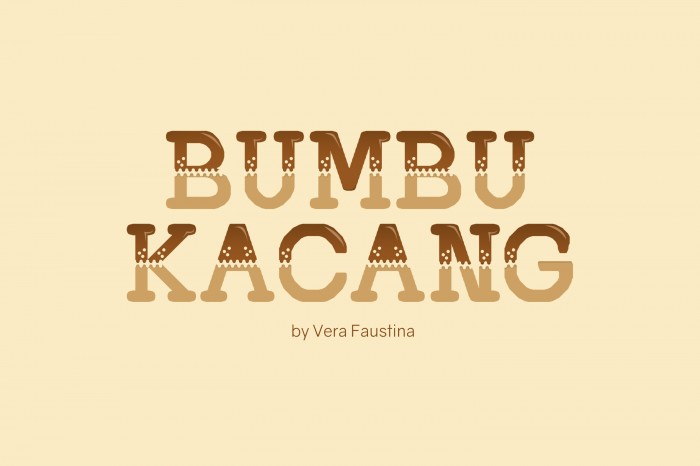
• Bumbu kacang is the actual name of Indonesian Salad’s (also known as gado-gado) peanut sauce. The round shape of the typeface inspired by the shape of lontong. The curvy part in the middle and the dots represent the peanut sauce.
Nice concept and well-executed ^^
this typeface really good, i really like it
cool font!! wow!
Great font and Nice concept! like it
Love it.. makes me wanna eat Gado-gado ^_^
WOW good idea, nice font.... goodjob
Nice concept !
lucu verr
nice font!!!
best one! love this cutie typeface❤️
niceee font ver!
nice font!
Ampun master
Keren pol! Kaya tribal" gtu. Goodjob! :)
Typeface ini indah bangett sis :)) like 9000x :))
consistent and perfect :3
Kesan kacangnya lucu banget!
Great job! Neat and unique!
kreatif!! kerenn!!
supernice! me lovittt! bagus pol verrr ngawur <3
Nice Typography, typeface yg detil, dan penambahan unsur desain sangat pas untuk menggambarkan gado-gado :)
Nice concept :D
Verry good! So consistent. I like it ;)
good consistency!
nice work.. i like ur typeface.. :) konsisten pula.. wkwkwkwk..
Loving this font! Nice concept :))
cucooook
keren, konsisten, suka sama konsepnya
Here's a preview for Bumbu Kacang typeface :)
Cool! looked so great and Nice!